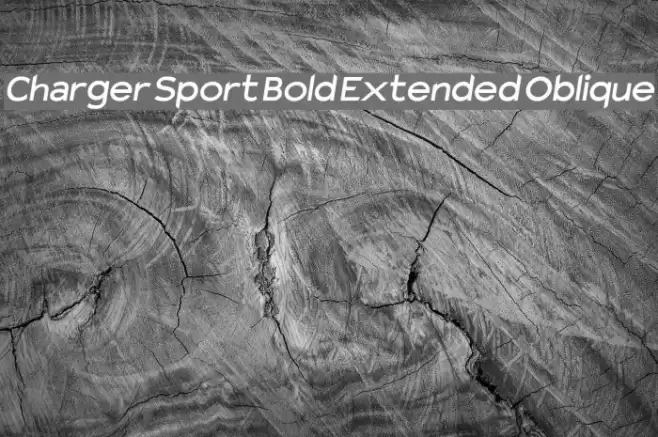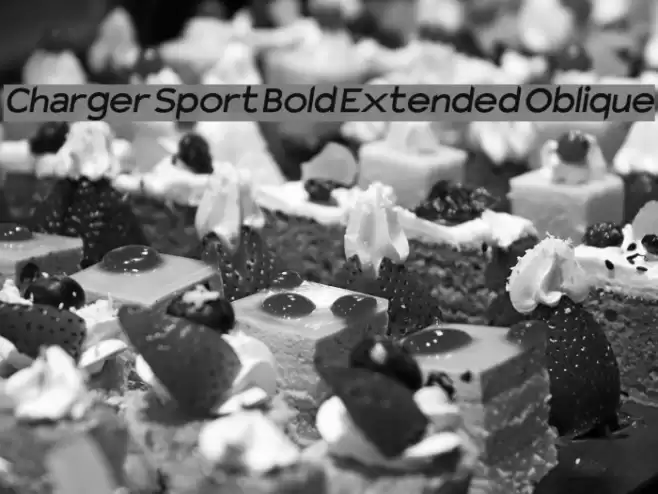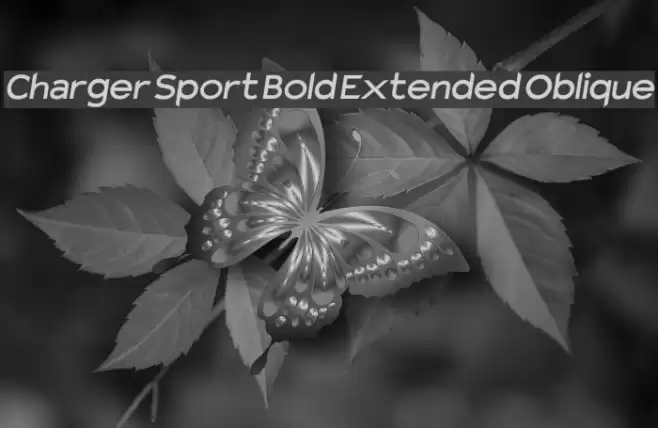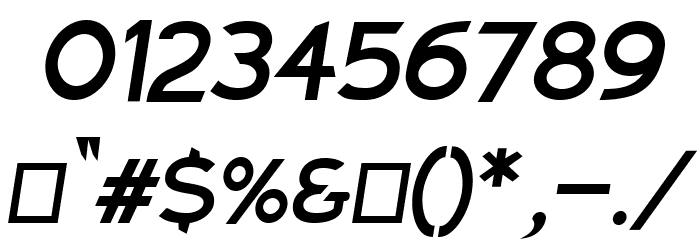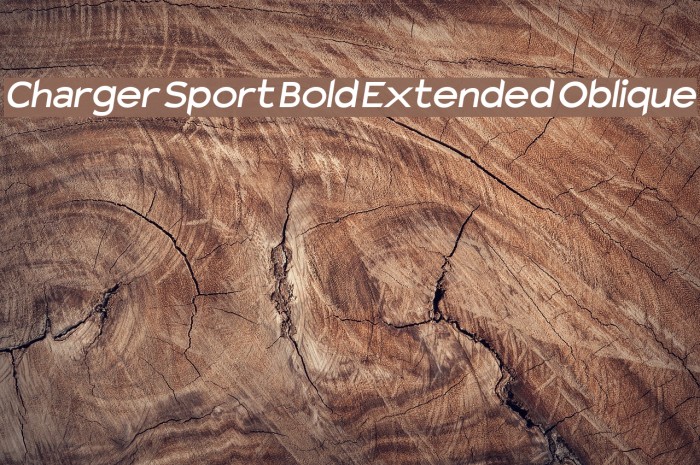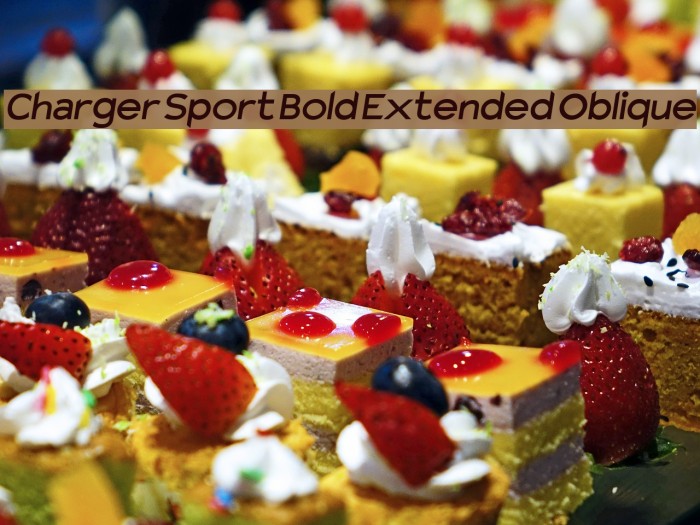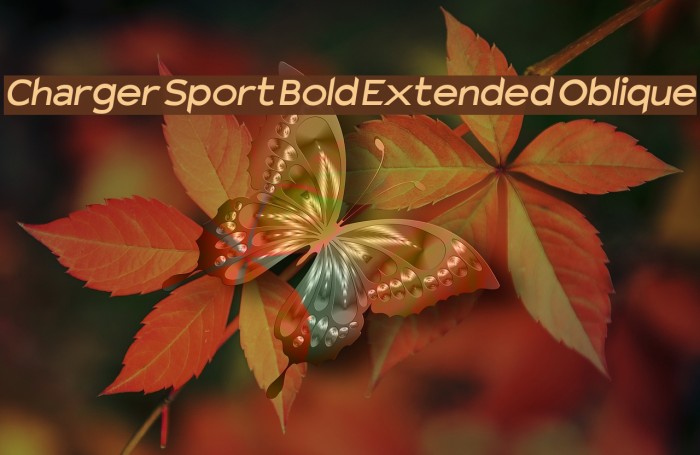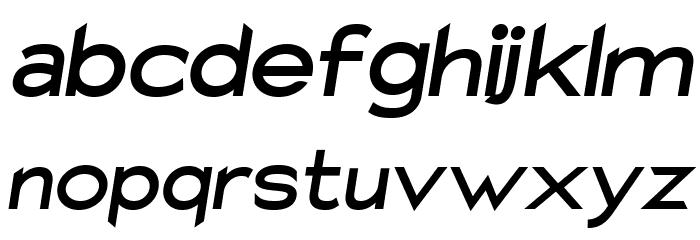
Charger Sport Bold Extended Oblique Font
Charger Sport Bold Extended Oblique Description
This font exhibits a dynamic and sporty aesthetic, characterized by its bold and extended letterforms. The oblique style adds a sense of motion and speed, making it ideal for energetic and modern designs. The uppercase and lowercase letters maintain a consistent slant, enhancing the font's cohesive appearance. Numbers and special characters are designed with the same boldness and slant, ensuring uniformity across all text elements. The overall design is clean and impactful, suitable for making strong visual statements.
A bold, extended, and oblique font with a sporty and dynamic style from Uncategorized fonts.